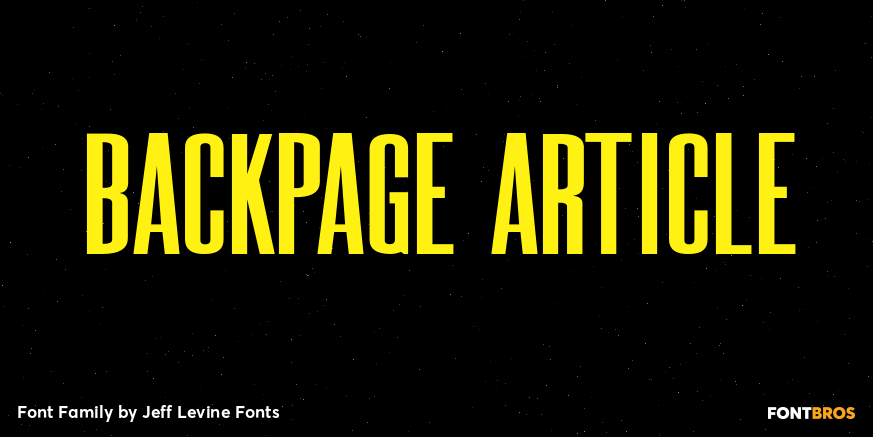
Backpage Article
Backpage Article JNL and its oblique counterpart are a variant to the popular sanserif wood types used in newspaper headlines and on broadsheets in years past.